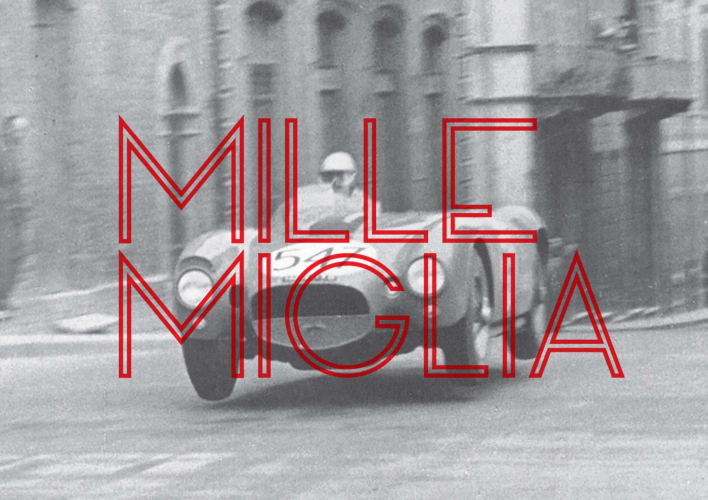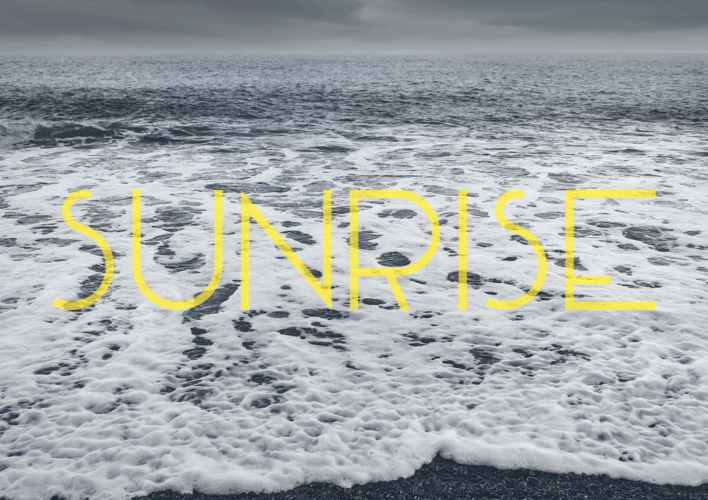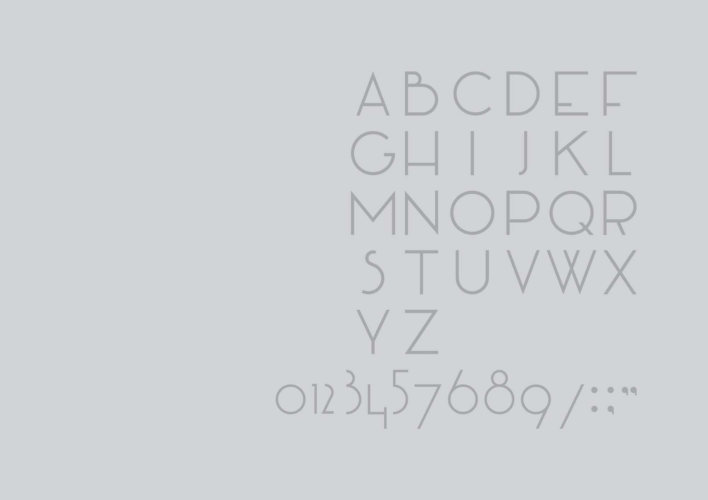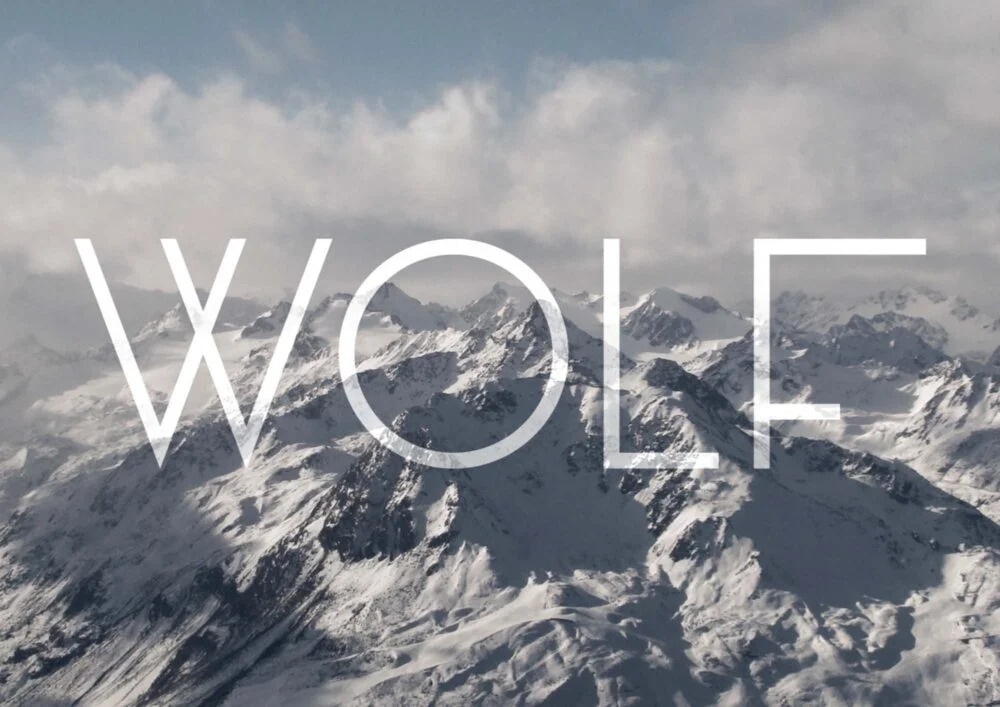
Manifesto Font
Manifesto Font is a written statement to be shared with the public, a declaration of something that goes far beyond the immediate words put in front of us and that leave…
Manifesto Font is a written statement to be shared with the public, a declaration of something that goes far beyond the immediate words put in front of us and that leaves its marks on its readers, even after the text has ended. And because manifestos are so effective.
Manifesto is a brand new font inspired by the Italian rationalist movement. What do you want your font to say? Simple yet confident, minimalist yet unforgettable, with characters that give precision a whole new meaning? Introduce simple designs with plenty to say by using the font that allow its uppercase letters to shine not individually but within a combination that makes its effects long-lasting and that can be used for branding presentations, packaging designs, posters, and many other options since Manifesto come with a commercial license.
Where Manifesto Font works best
Manifesto Font stays legible at small sizes, which makes it a strong choice for navigation, buttons and dashboards in web design and app interfaces.
Clean sans serifs like Manifesto Font are the default language of SaaS, fintech and product branding.
What is Manifesto Font good for?
Manifesto Font is a Sans Serif Fonts typeface tagged Branding, Minimalist, Packaging, Poster. It works well for headlines, logos, posters, social media graphics and branding projects that need a distinctive sans serif fonts look.